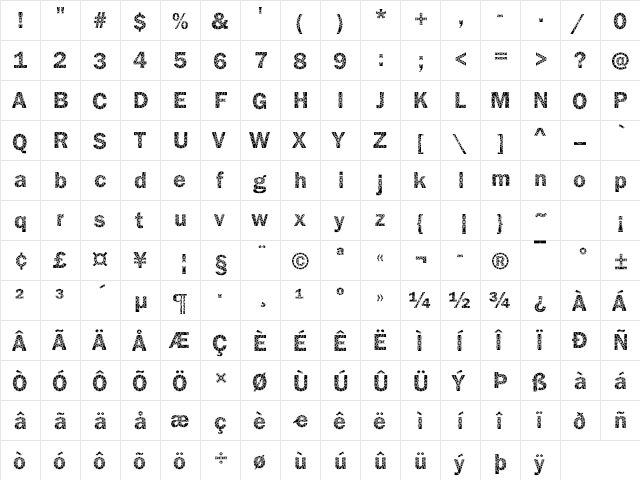
DTCFranklinGotM30 Regular Font Preview
DTCFranklinGotM30 Regular
Design Context for DTCFranklinGotM30 Typeface
DTCFranklinGotM30 is a composed and adaptable typeface that performs quietly and consistently across a wide range of design contexts.